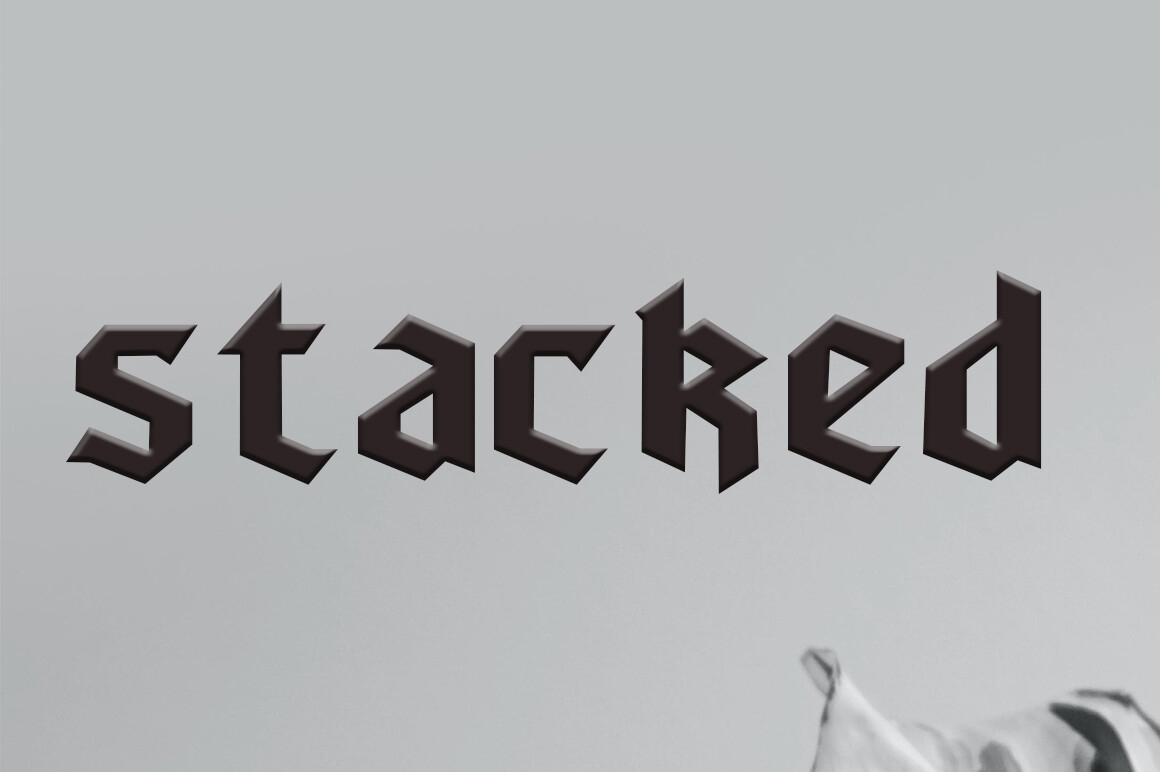
Welcome Font
About Welcome Font
Discover the art of expression with our Blackletter Welcome Font in bold black strokes. Elevate your designs and projects with this timeless and sophisticated typeface. Welcome to a world where every word makes a statement. Explore now!